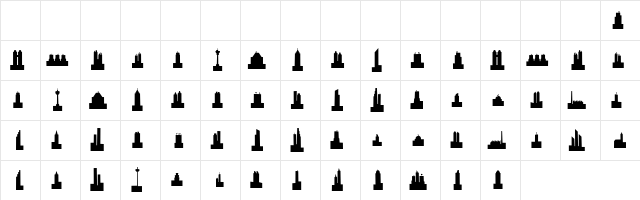
fontoville at night Regular Font Preview
fontoville at night Regular
fontoville at night Regular Font Details
Design Context for fontoville at night Typeface
fontoville at night is a composed and adaptable typeface that performs quietly and consistently across a wide range of design contexts.